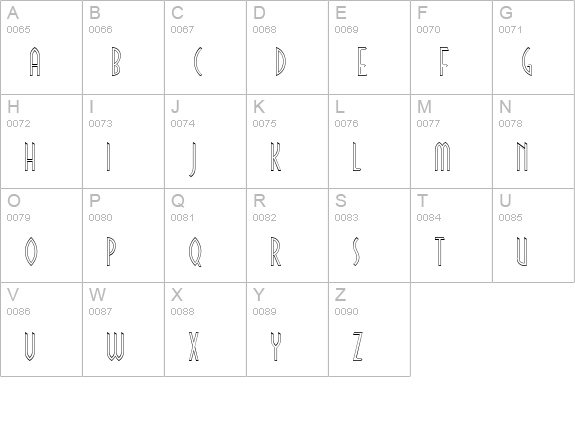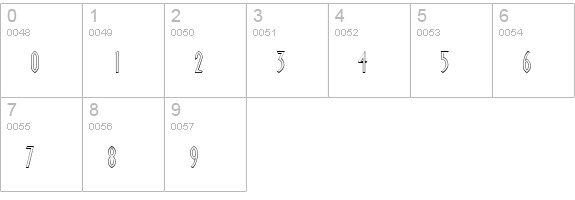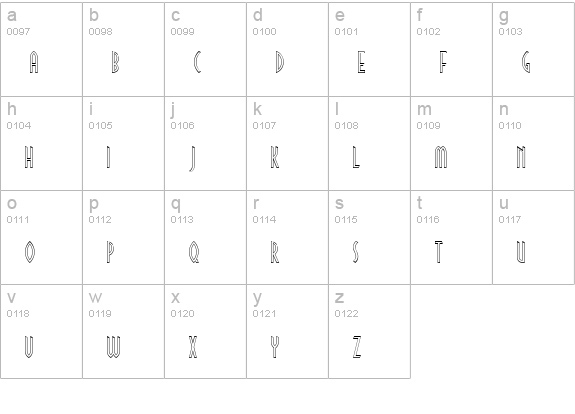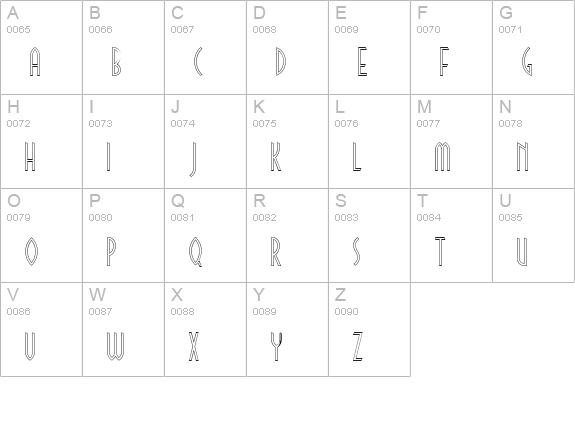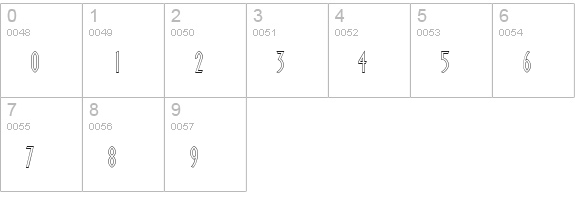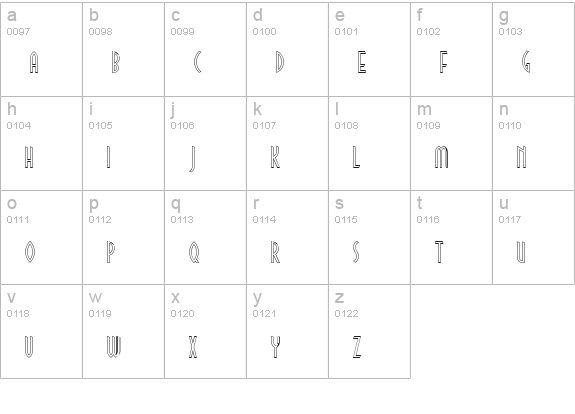
CinemaOutline Font Details
CinemaOutline font is a stylish and modern typeface that brings a touch of elegance to any design project. With its clean lines and classic aesthetic, this font is perfect for creating eye-catching titles, headlines, and logos. The CinemaOutline font exudes a timeless charm that is sure to captivate your audience. Best of all, this font is available for free download at FontsMarket.com, making it easily accessible for all your creative needs. Add a touch of sophistication to your designs with CinemaOutline font today!